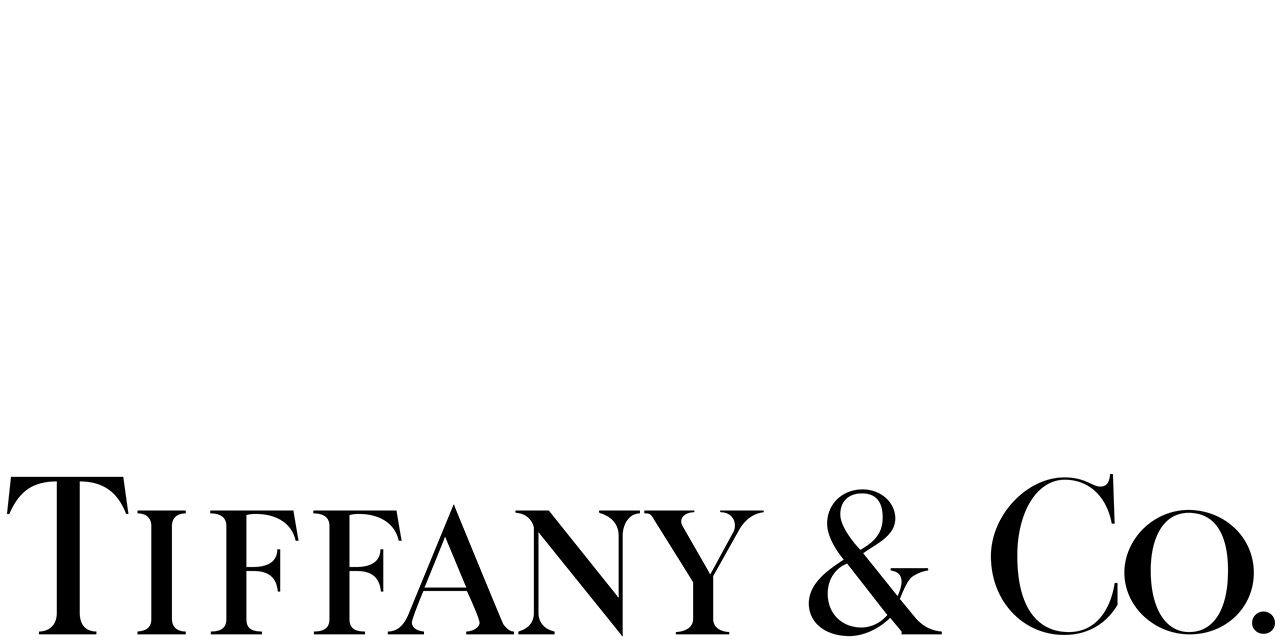
What Font Is The Tiffany Logo
What Font Is The Tiffany Logo. I'm looking for the closest font to this one. Design your own tiffany logo for free.
Fonts tiffany normal in uncategorized category. *update* after i wrote this, i found another post stating that this is a logomark made by pentagram. The designers have subtly redesigned the familiar blue packaging in a way that gives the bags and boxes a more luxurious feel.
Tiffany Font Is A Unique Serif Typeface.
Introducing tiffany and co font from logos typeface style font! After downloading, you will use the times new roman for creating astonishing designs. Logotype has been redrawn by hand to.
This typeface comes in the category of clean serif typeface family that has 7 weights including regular, italic, medium, light, normal, bold italic, and medium italic. Fonts tiffany normal in uncategorized category. For example, newspapers, stylish logos, brands, fashion industries, printing on cards, and etc.
A High Contrast, Delicate Serif Typeface Named Sterling By Hoefler Type Foundry Is Used In Both The Logo And As The Primary Font.